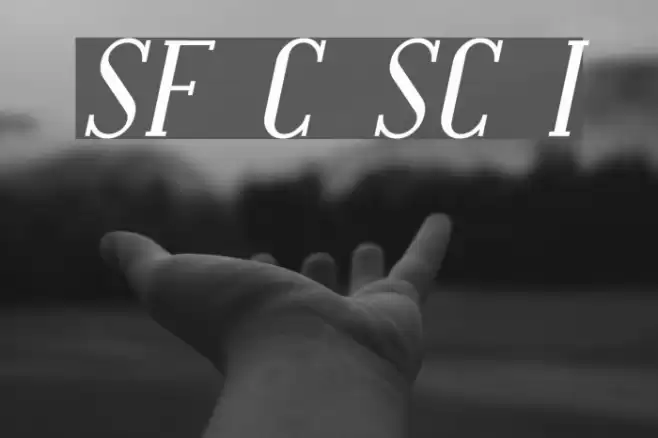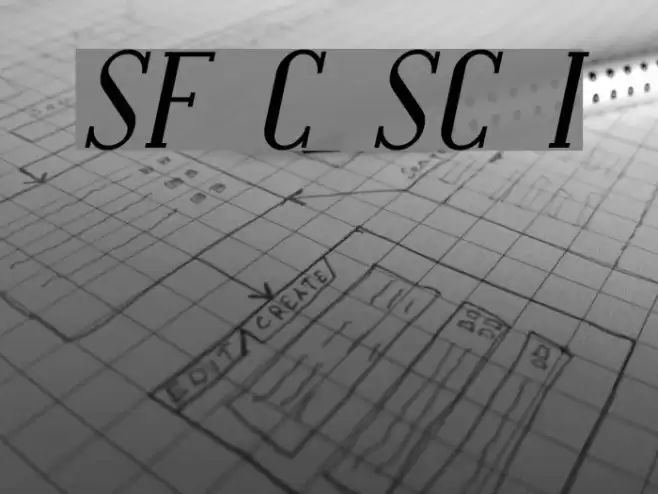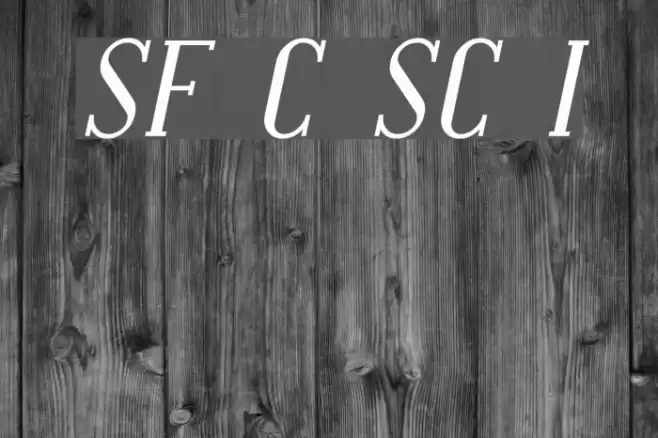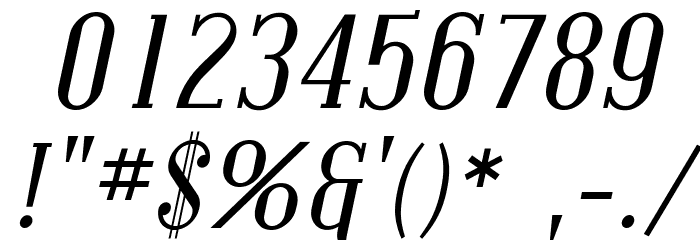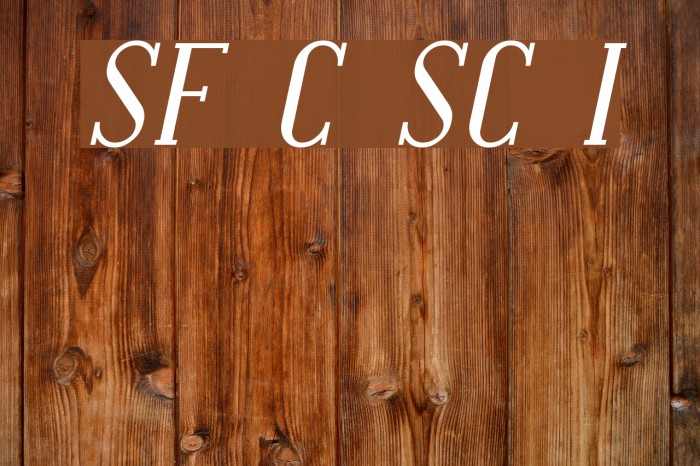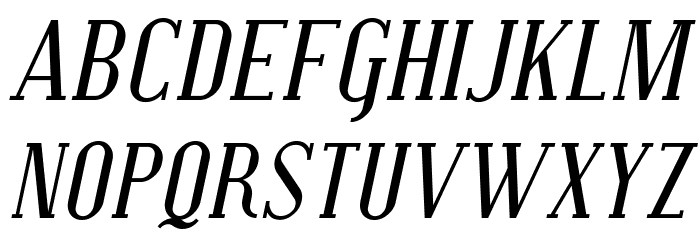
SF Covington SC Italic Font
SF Covington SC Italic Description
This font features a sophisticated and elegant design with a distinct italic slant, giving it a dynamic and fluid appearance. The characters are well-proportioned, with a classic serif style that adds a touch of formality and tradition. The uppercase letters are tall and commanding, while the lowercase letters maintain a consistent flow. The numerals are clear and easy to read, complementing the overall aesthetic. Special characters are thoughtfully designed, maintaining the font's cohesive look. This font is suitable for projects that require a refined and professional touch.
An elegant serif font with a dynamic italic slant, perfect for formal and sophisticated designs from Uncategorized fonts.
- Proposed Projects: Ideal for use in luxury branding, editorial design, invitations, and high-end product packaging.
- Overall Style: Classic
- Use Case: Headlines, Logos, Editorial design